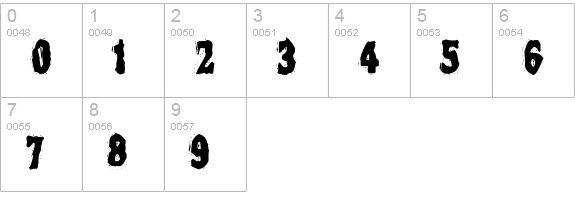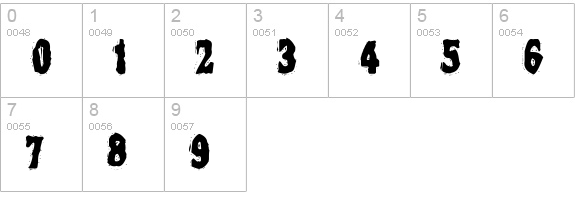
VTC NightOfTheDeadCorruptCaps Font Details
VTC NightOfTheDeadCorruptCaps font is a hauntingly beautiful typeface that exudes an eerie and mysterious aura. Its twisted and distorted letterforms are reminiscent of the dark corners of the supernatural world, making it the perfect choice for Halloween-themed designs, horror movie posters, or any project that requires a touch of macabre elegance. This unique font captures the essence of the night of the dead with its corrupted and decayed appearance. Each letter is meticulously crafted to convey a sense of foreboding and dread, while still maintaining a certain level of sophistication. The jagged edges and intricate details give the typeface a sense of movement, as if the letters themselves are alive and pulsating with dark energy. But what makes VTC NightOfTheDeadCorruptCaps font even more enticing is that it is available for free. Yes, you read that right – this mesmerizing font can be freely downloaded at FontsMarket.com. With just a few clicks, you can add a touch of darkness and intrigue to your design projects without spending a dime. Whether you're a professional designer, a student, or simply someone who loves experimenting with different fonts, VTC NightOfTheDeadCorruptCaps is a must-have addition to your collection. Its versatility and unique style make it a perfect choice for a wide range of projects, from posters and flyers to social media graphics and website headers. So why wait? Unleash your creativity and dive into the realm of the supernatural with VTC NightOfTheDeadCorruptCaps font. Download it for free at FontsMarket.com and let your imagination run wild in the dead of night.